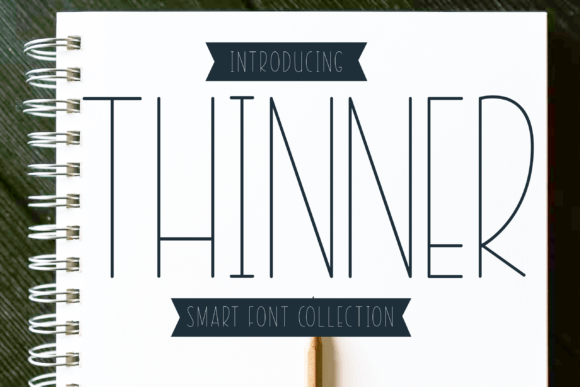
Introducing Thinner - The Ultimate Sans Serif Font for Your Creative Vision
In a world of visual storytelling, fonts are the unsung heroes, the silent performers that bring life to your creative ideas. Thinner, a captivating sans serif font from the esteemed foundry Goodrichees, is no exception. Its slender, towering structure exudes elegance and sophistication, making it the perfect choice for designers, marketers, and content creators seeking to make a lasting impression.
With its delicate hairlines and sharp terminals, Thinner demands attention without overpowering your content. It's a font that commands respect, conveying authority and trustworthiness, whether you're crafting logos, headlines, or website copy. Its tall x-height and open letterforms ensure optimal readability even at smaller sizes, making it ideal for both print and digital applications.
But Thinner is more than just a visually stunning font; it's a versatile workhorse that adapts seamlessly to an incredibly diverse range of projects. Whether you're designing sleek brochures, eye-catching social media graphics, or immersive website experiences, Thinner will effortlessly elevate your creations, adding a touch of sophistication and polish.
Imagine Thinner as the backbone of your next logo design. Its clean lines and strong presence will create an instant connection with your audience, leaving a lasting impression that says, "We're professional, trustworthy, and here to stay." Unleash your creativity and explore the endless possibilities that Thinner offers.
Thinner's adaptability extends beyond logos. Its tall and slender structure lends itself beautifully to headlines and titles, where it commands attention without overpowering the supporting text. Whether you're creating captivating blog posts, brochures, or website landing pages, Thinner will ensure your headlines stand out, enticing readers to delve deeper into your content.
In the realm of web design, Thinner shines as a font that enhances user experience. Its clarity and readability make it a joy to navigate through websites, ensuring that visitors can effortlessly find the information they seek. Thinner's versatility makes it suitable for both body text and navigation elements, creating a cohesive and visually pleasing online experience.
Join the creative revolution and embrace Thinner, the sans serif font that's turning heads and captivating audiences worldwide. Let its timeless beauty and unwavering performance elevate your projects to new heights. The possibilities are endless, and the creative journey begins now.